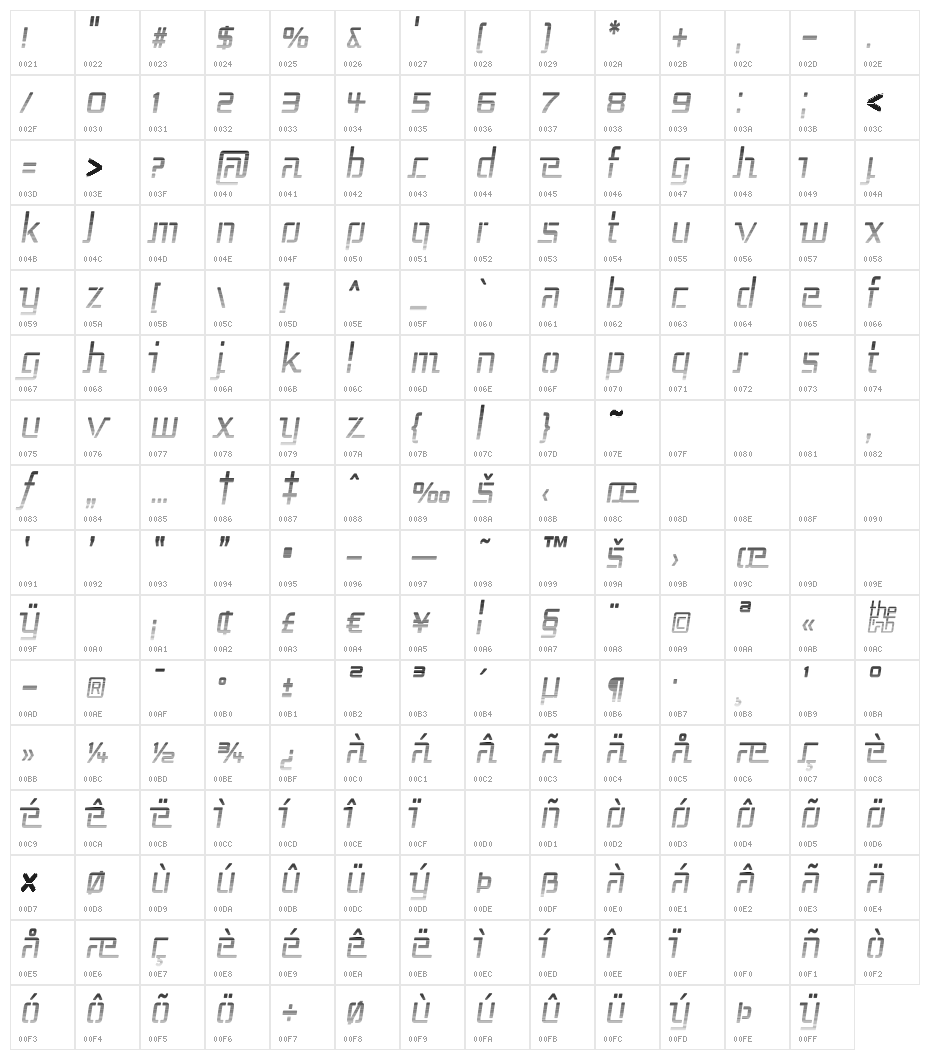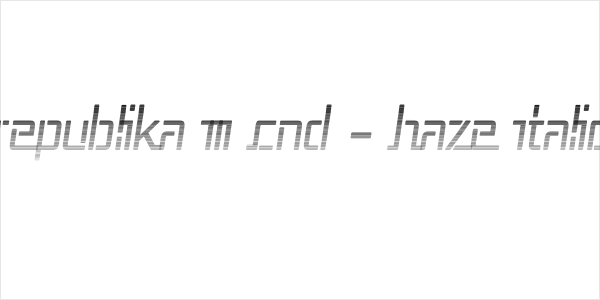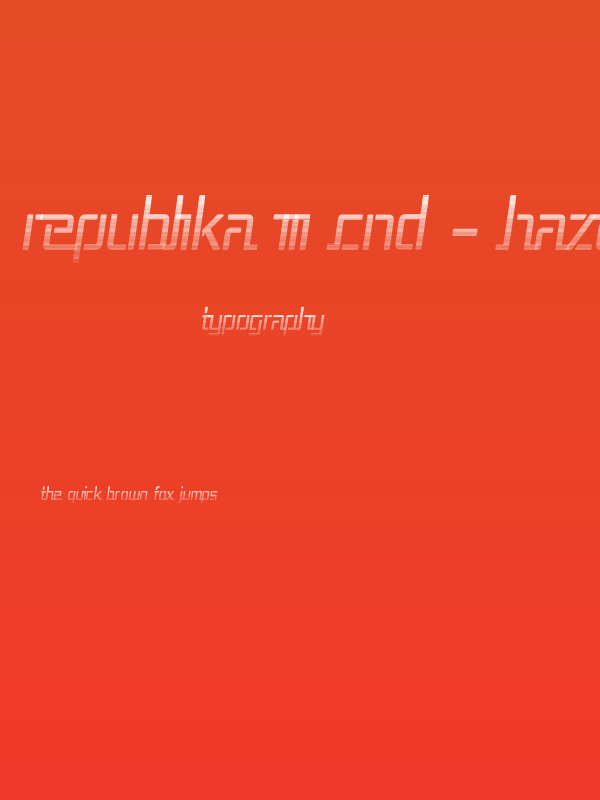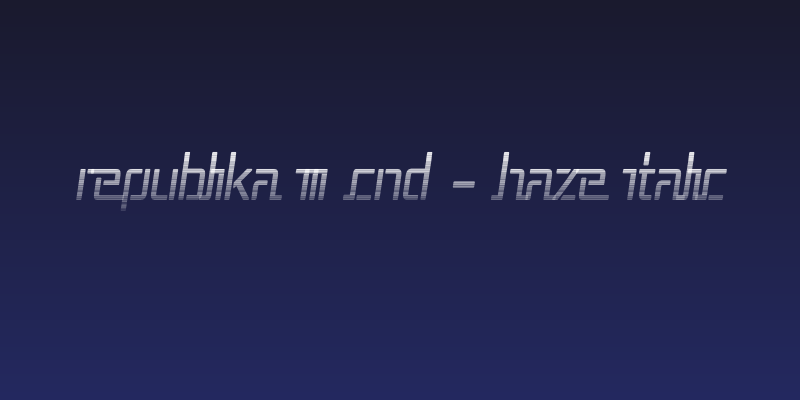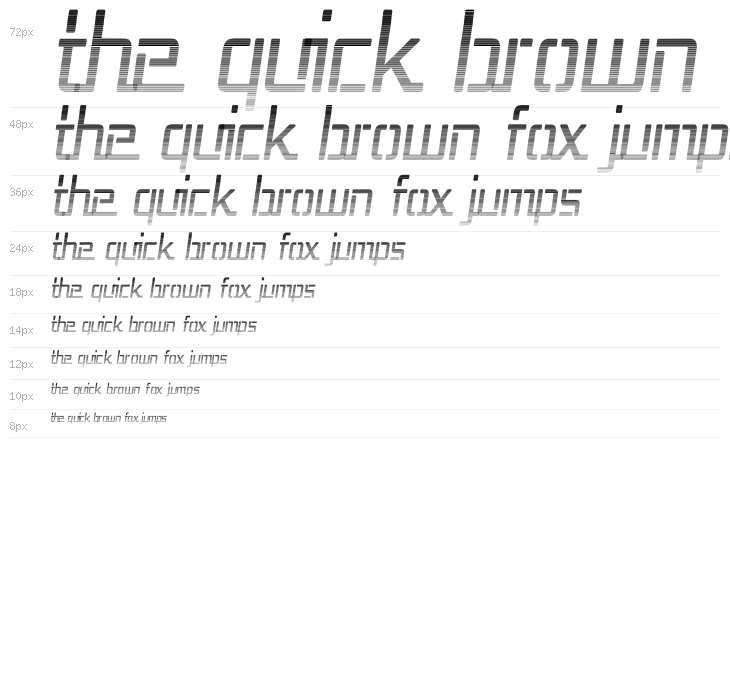
Republika III Cnd - Haze Italic Font
Republika III Cnd - Haze Italic Description
This font features a modern, futuristic design with a condensed and italicized style. The characters have a sleek, streamlined appearance, with angular edges and a consistent slant that adds a sense of motion and dynamism. The strokes are uniform in thickness, providing a medium contrast that enhances readability while maintaining a contemporary aesthetic. The font's geometric structure is evident in its precise, clean lines and sharp corners, making it suitable for projects that require a cutting-edge, tech-inspired look. The character spacing is tight, which contributes to its compact and efficient design, ideal for space-saving applications.
| Use Case | Headlines, Logos, Digital Interfaces |
| Proposed Projects | Ideal for technology branding, sci-fi themed designs, modern advertising, and digital interfaces. |